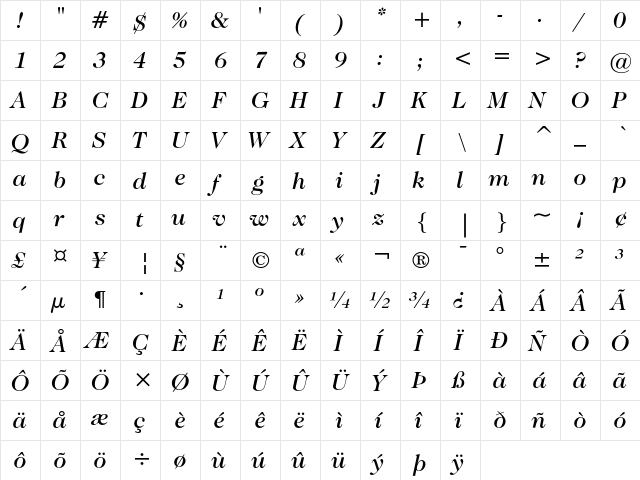
ITC Caslon No.224 Medium Italic
Design Context for ITC Caslon No.224 Typeface
ITC Caslon No.224 is a composed and adaptable typeface that performs quietly and consistently across a wide range of design contexts. The slanted form adds forward momentum and visual energy.
Pro Tip: Try ITC Caslon No.224 for annotation and caption copy alongside an upright companion — the contrast in angle creates a dynamic but ordered typographic system.